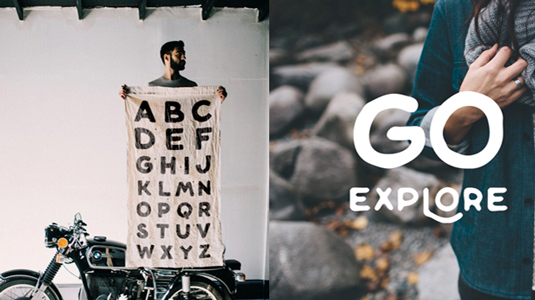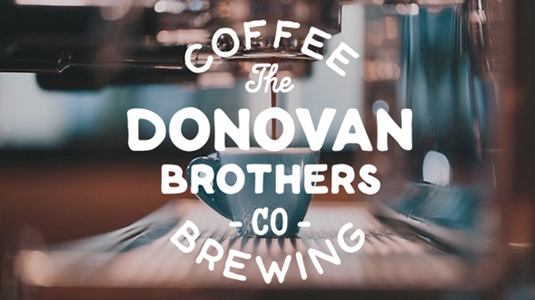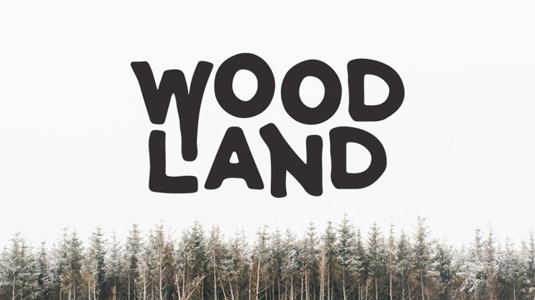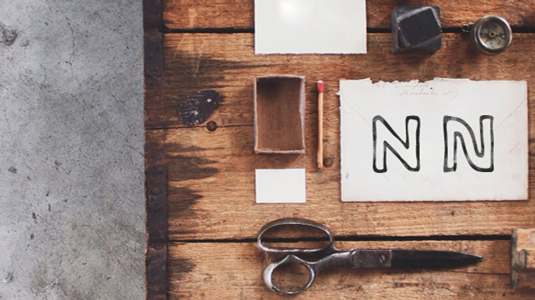
Font of the day: Woodland
Every day we showcase the best fonts on the web. Today it's Woodland by Mark van Leeuwen.
Woodland by Mark van Leeuwen
A fully, hand-crafted sans serif typeface, Woodland includes three weights; thin, bold and outline. Created by type designer Mark van Leeuwen, Woodland is perfectly suited to vintage poster and logo designs.